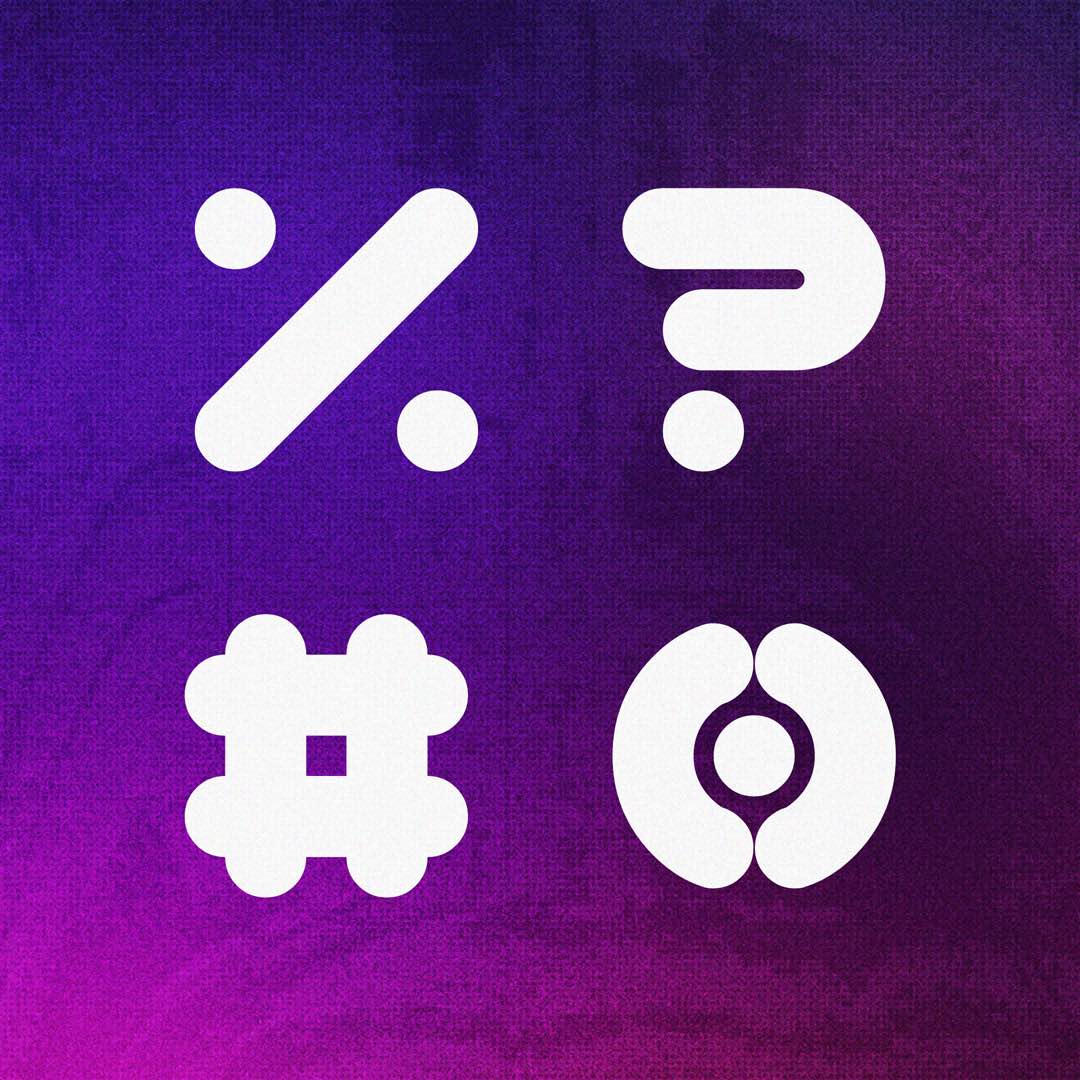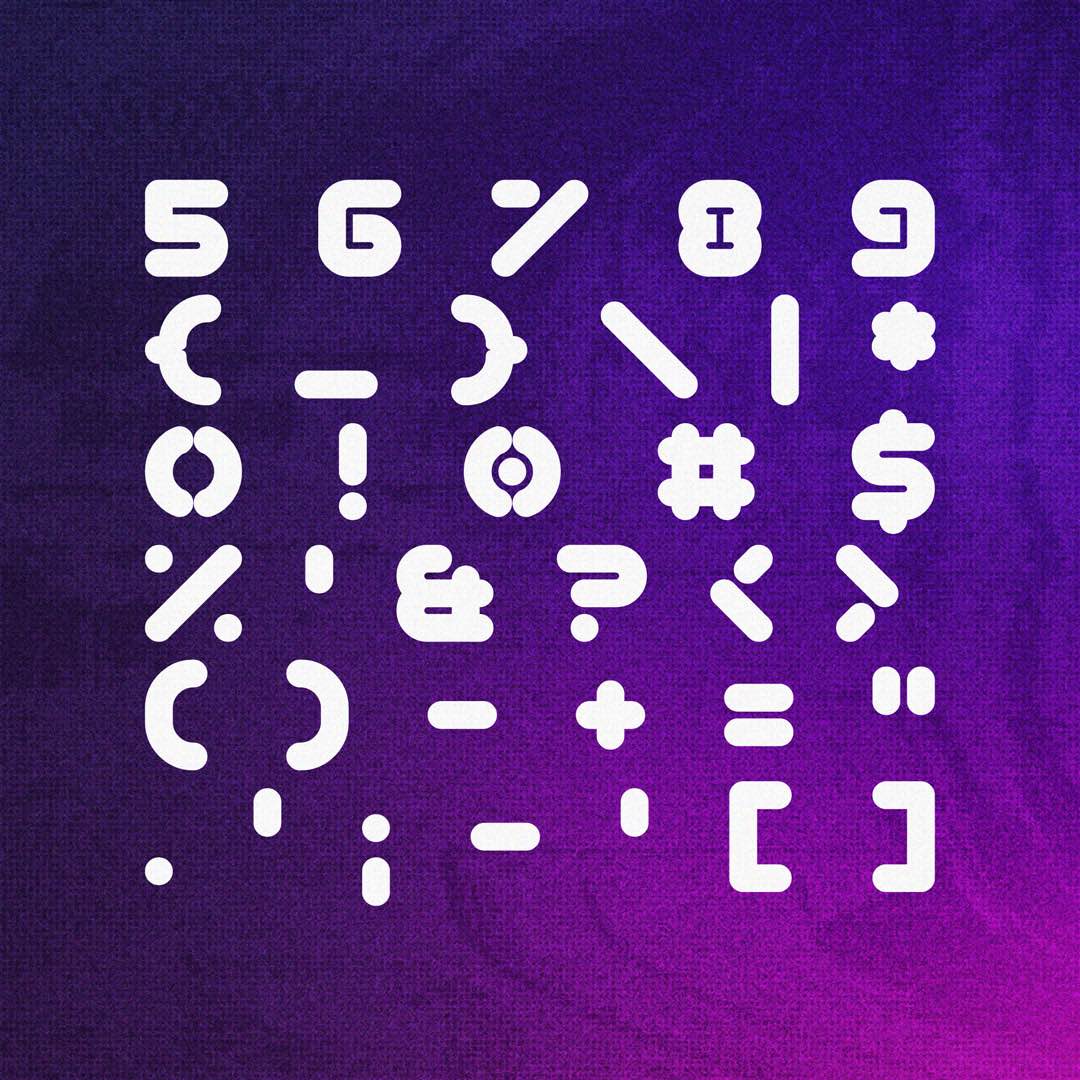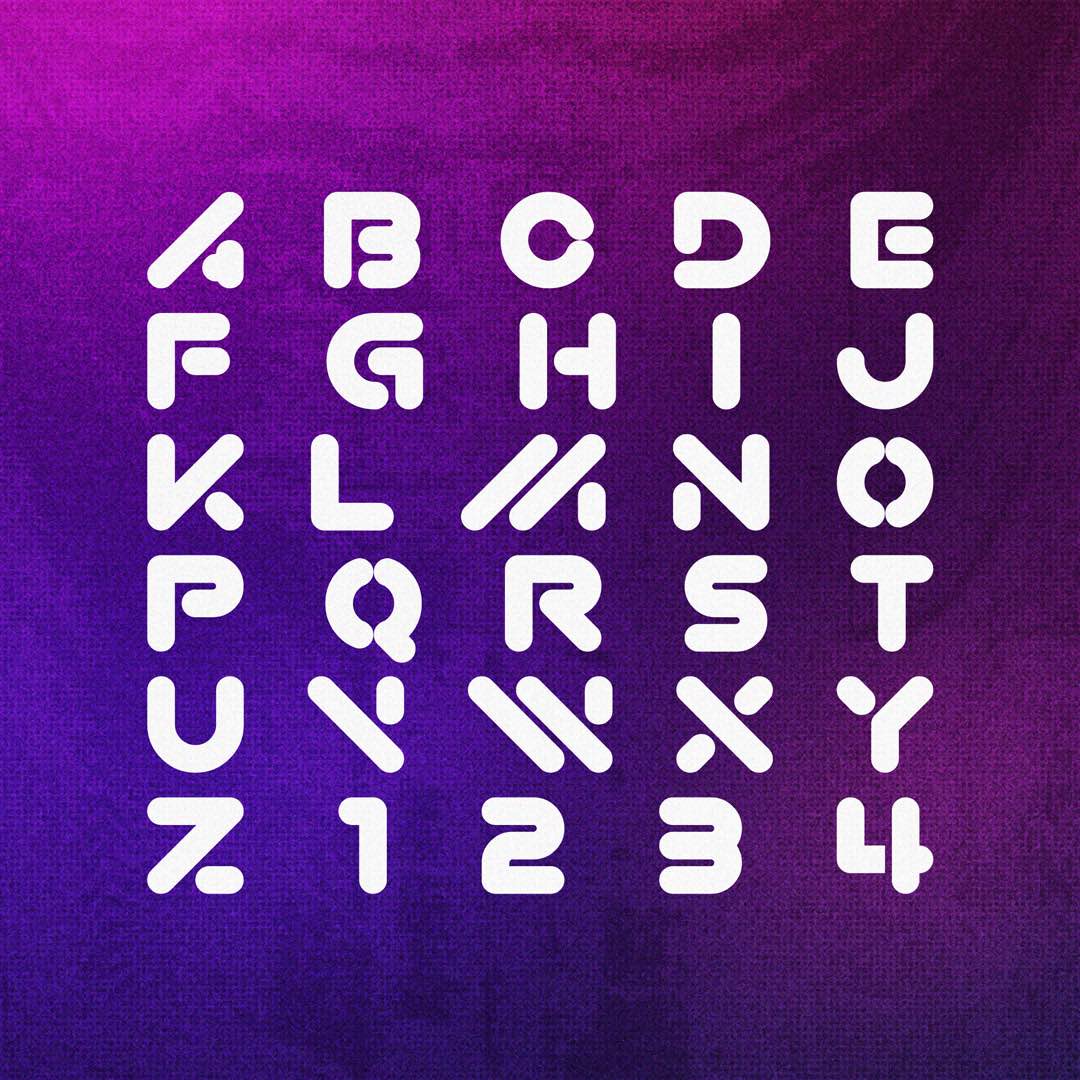
Future is typography with a forward-tilt, crisp, balanced, and unmistakably modern. Built on geometric foundations with zero excess, this sans-serif display font speaks the clean language of sci-fi, tech, and interface design. Whether you’re building a UI, branding a startup, or just trying to look three steps ahead, Future delivers clarity with edge.